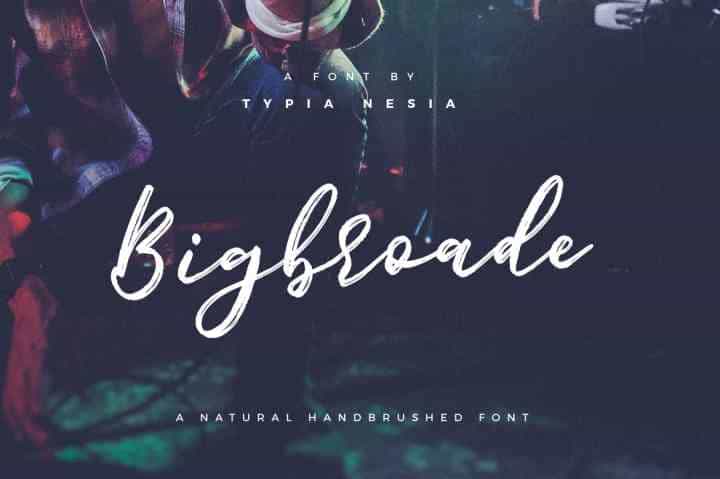
It is a fabolous hand brushed font which comes under the name of Bigbroade. Bigbroade font is ideal for any design requirement, modern invitation card designing, branding, blog designing, modern advertising card designing, invitation, Art Quote, Home d?cor, Book/Cover Title, Invitation, special occasions, birthday, custom mugs, pillows, t-shirts, any handbrushed signature style requirement and much more.